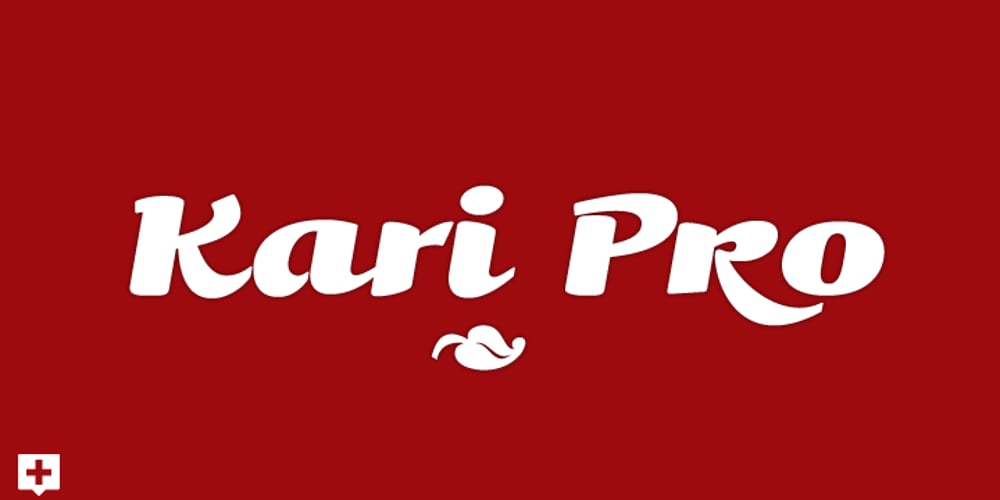
Kari Pro Font Family was designed by Neil Summerour and published by Positype. Kari Pro contains 4 styles and family package options. I have always enjoyed this typeface and have had fond memories from the time I originally drew its predecessor, Kari. Now with almost 100 new ligatures, alternate and swash characters, Kari Pro has a great deal more personality and versatility. Subsets from the original Kari have been integrated into each unified weight adding both lining and hanging (oldstyle) numerals as options as well.